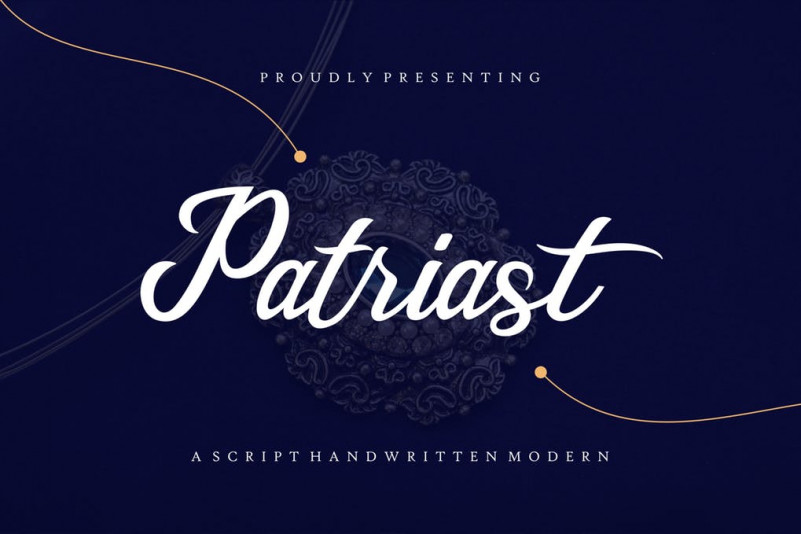
Patriast Font
Patriast handwirtten signature font is a handcrafted font that represents elegant and luxury side of a person who is using it. The combination of the soft touch and simplicity makes this font match pefectly with most casual occacion in our daily life. Explore the possibilites and have fun with it!